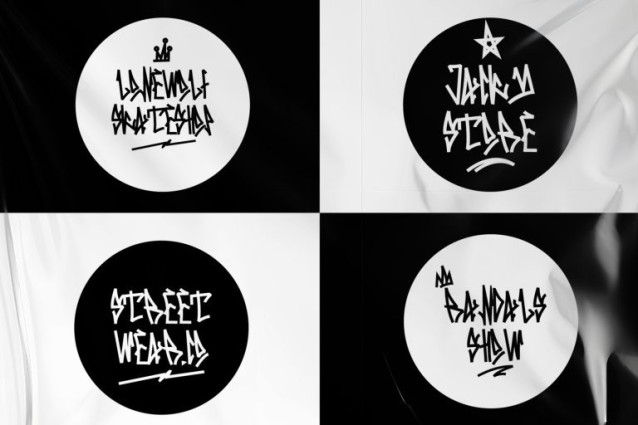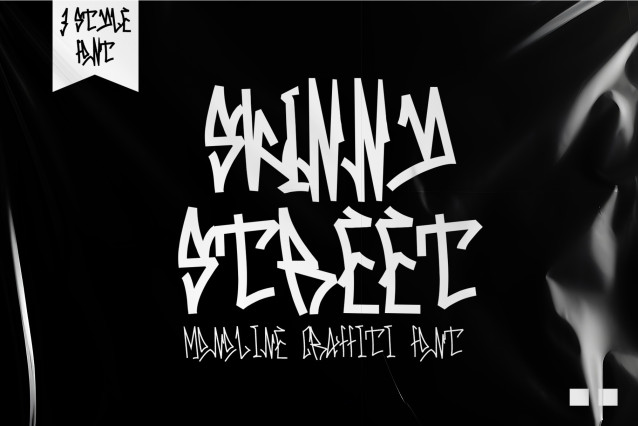
Skinny Street Font
Skinny Street Font is a monoline graffiti font that offers three different widths: light, medium, and bold. Monoline fonts maintain consistent stroke thickness throughout the characters, giving them a sleek and uniform appearance. The availability of three widths—light, medium, and bold—provides versatility in typography, allowing for various levels of emphasis and impact in design compositions.
With its monoline style and multiple width options, “Skinny Street” offers flexibility for different design needs. The light width may be suitable for subtle or delicate text, while the medium and bold widths can be used for more prominent or attention-grabbing elements. This font is well-suited for graffiti-inspired designs, urban-themed projects, posters, and other creative endeavors where a dynamic and expressive typographic style is desired.